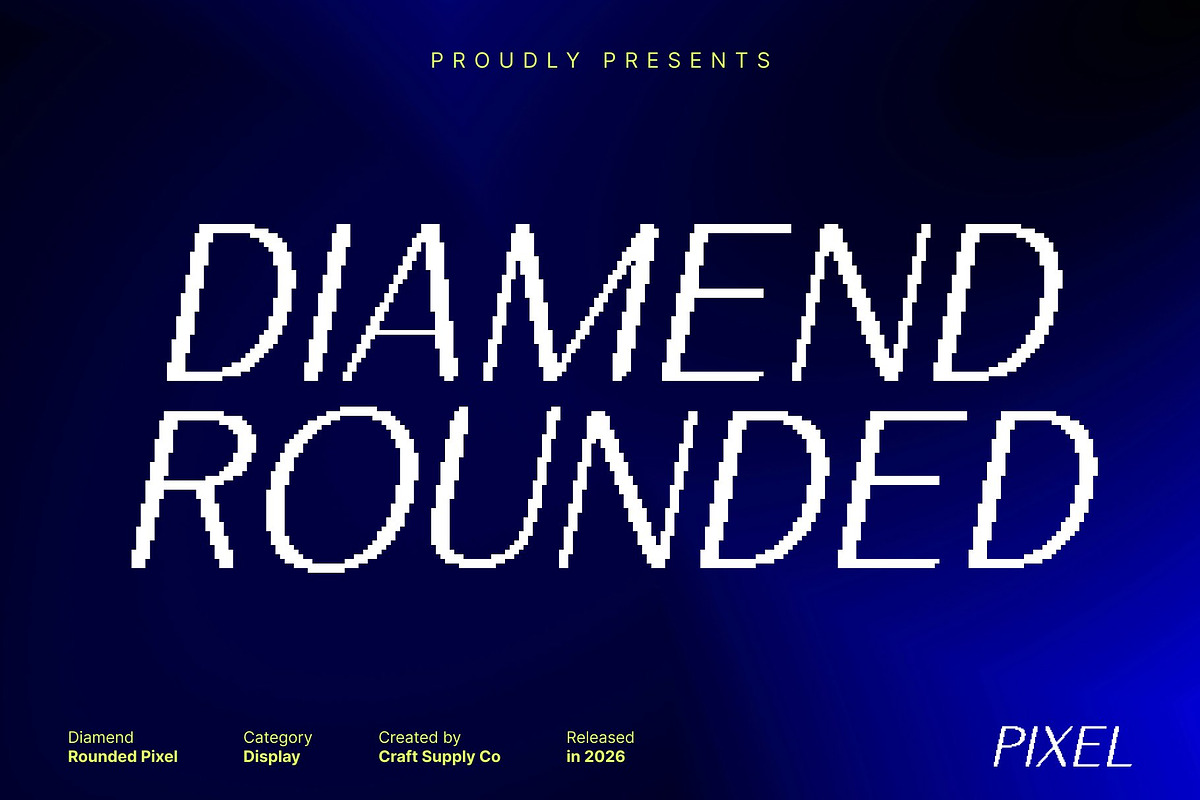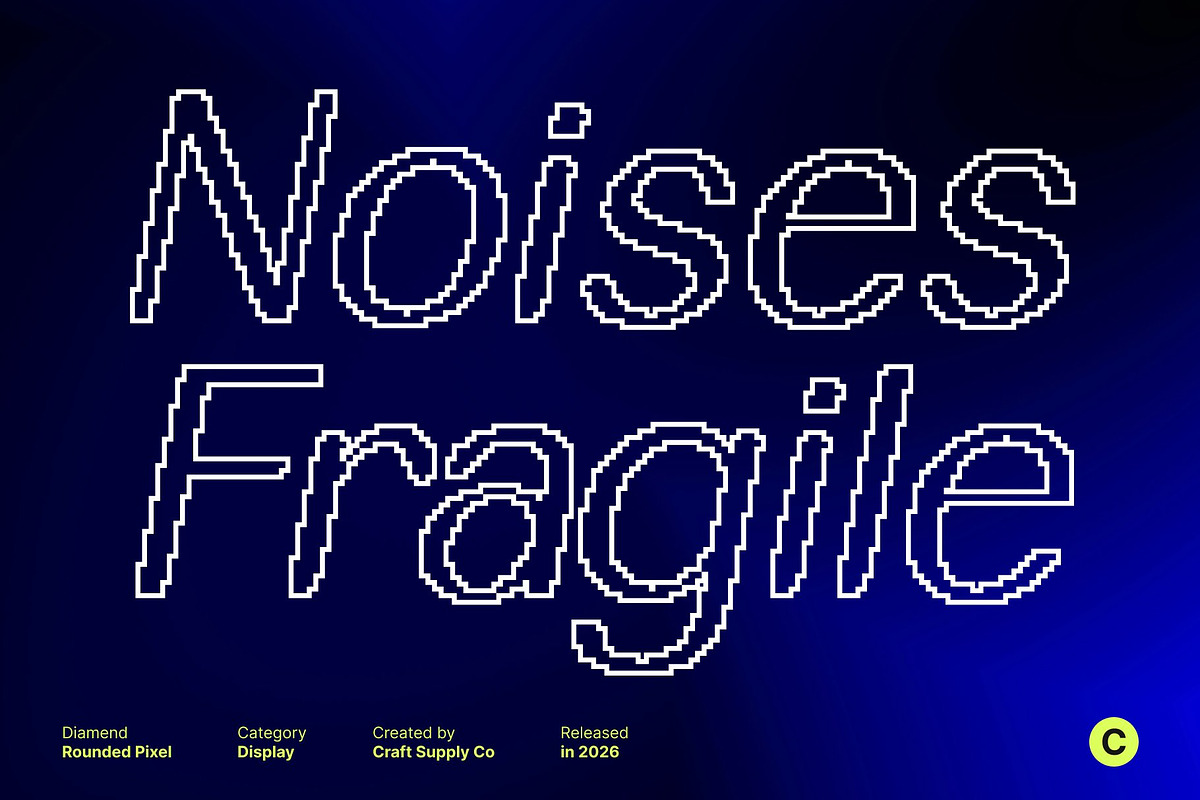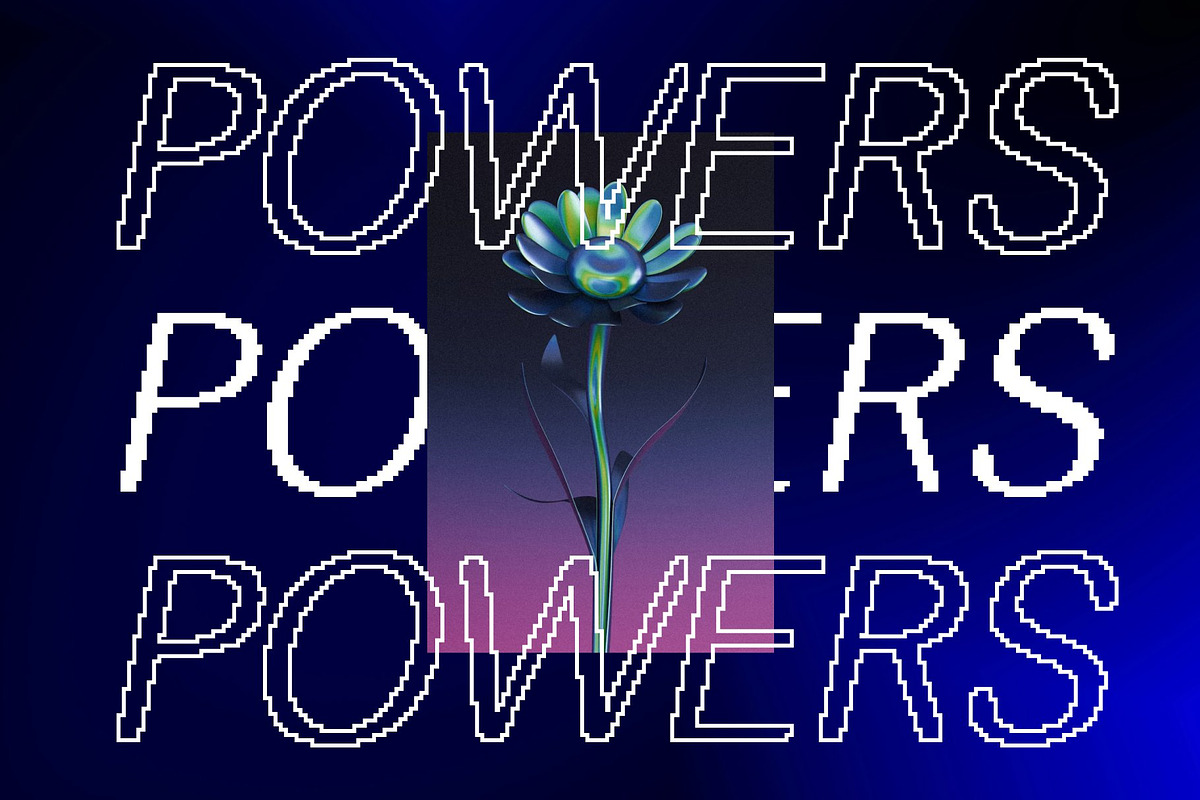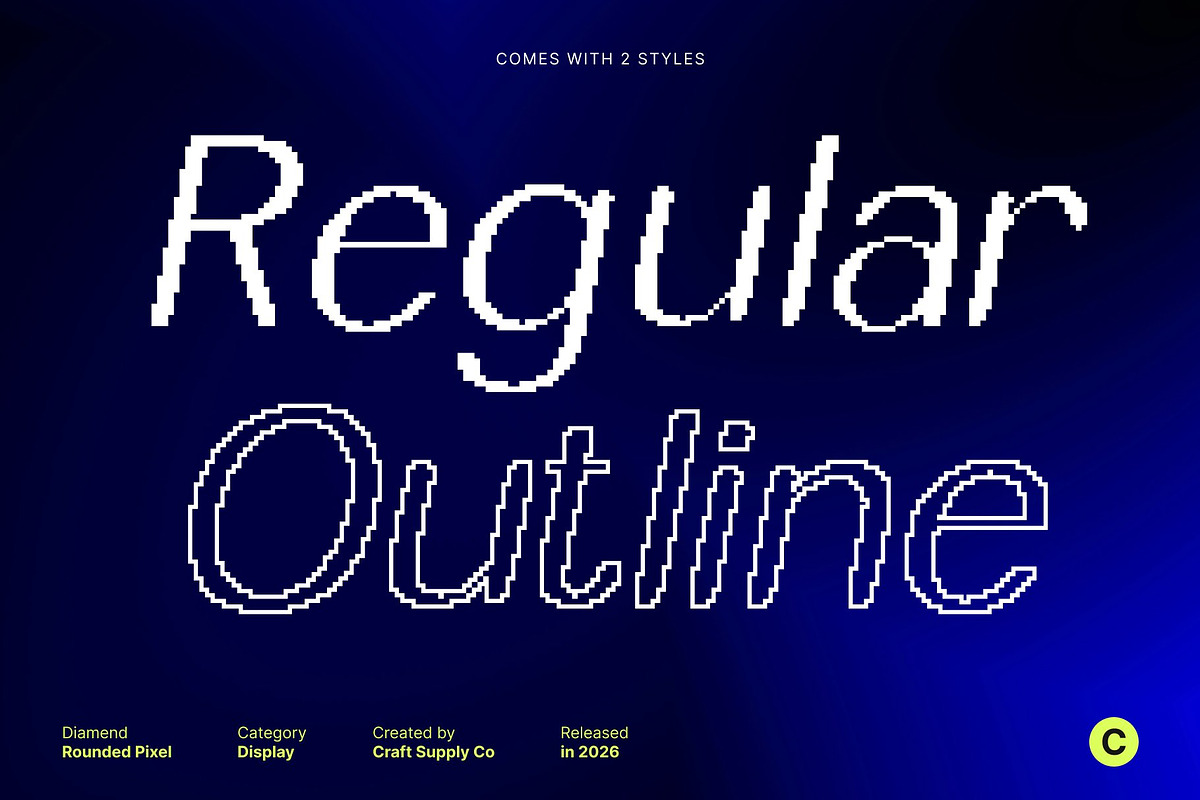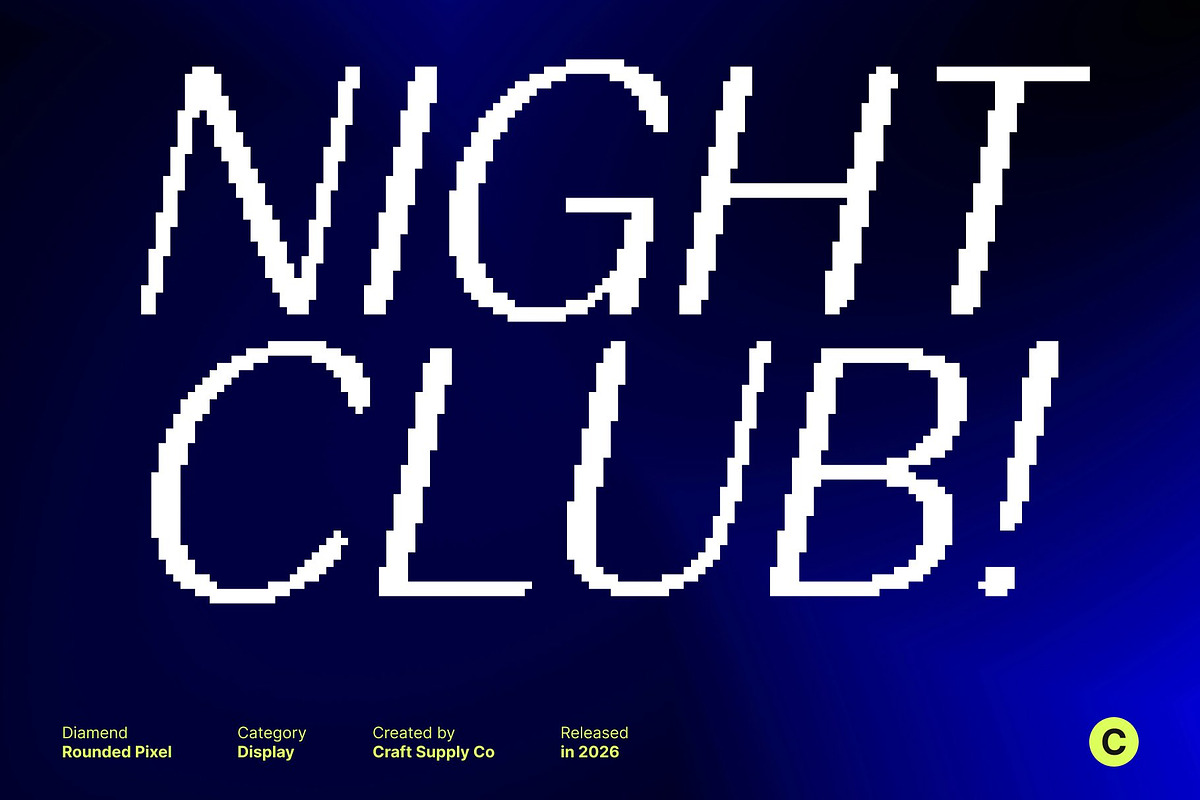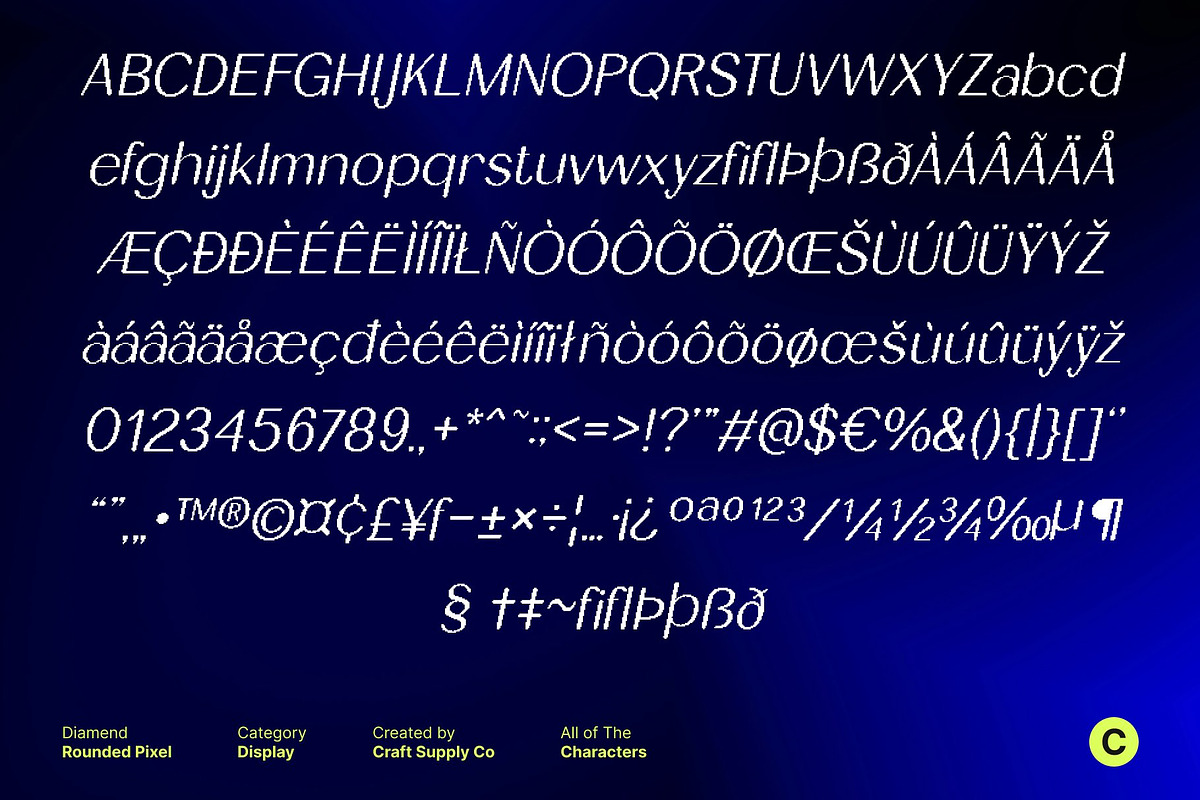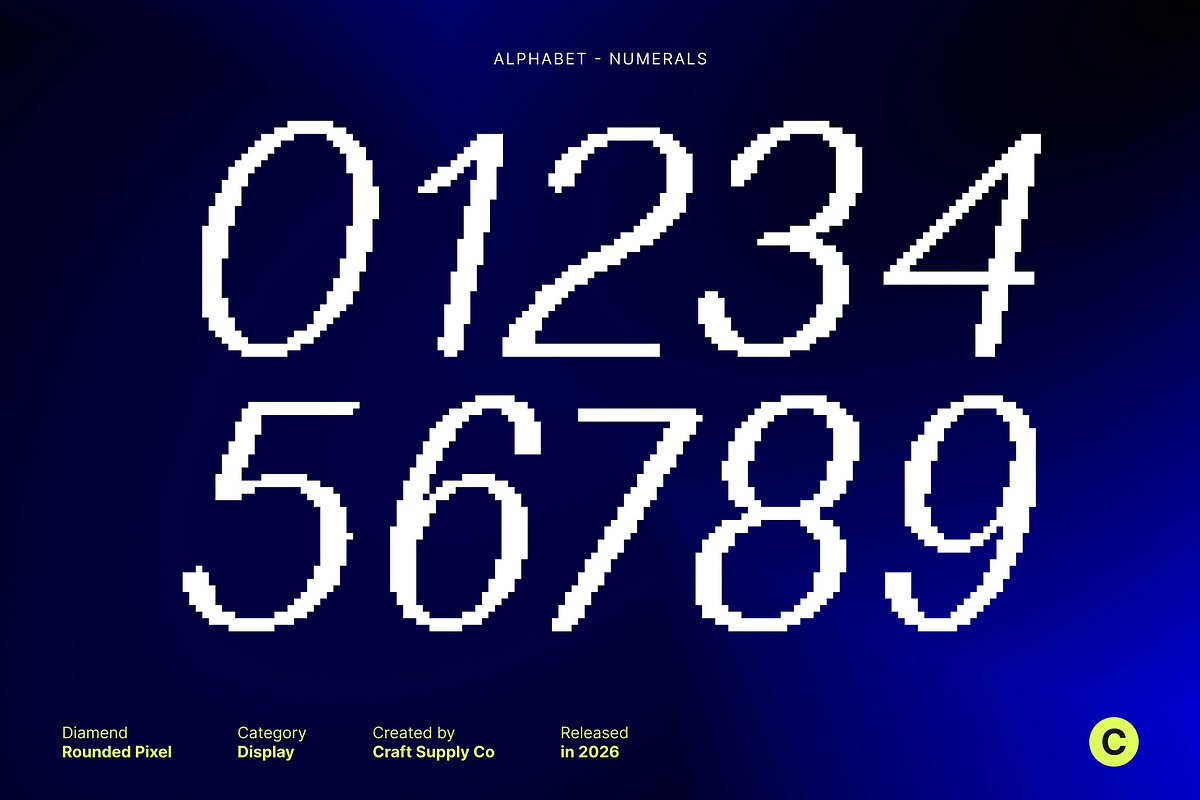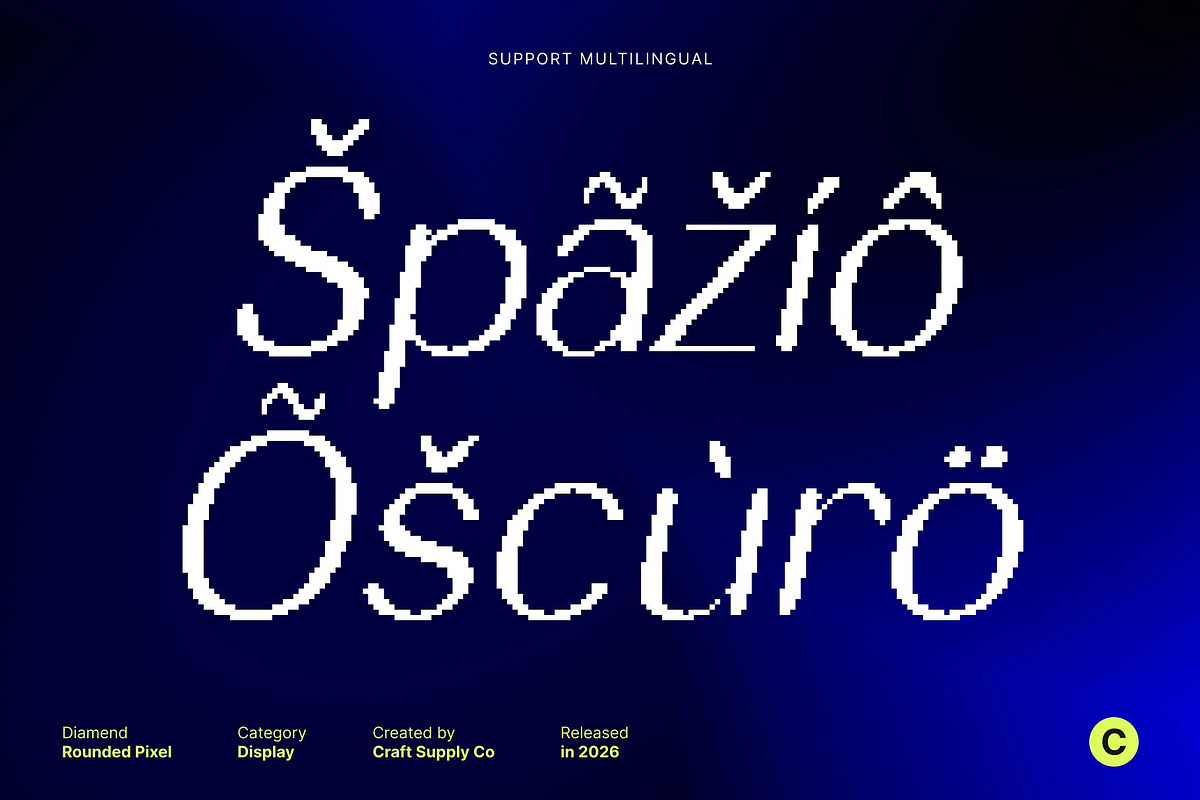
Diamend Rounded Pixel
Diamend Rounded Pixel – A Subtle Elegance Sans Serif
Smooth Rounded Sans with Pixel Softness This is a refined sans serif font that combines smooth, rounded letterforms with a subtle pixel character. This blend creates a soft yet modern appearance, delivering clarity, warmth, and gentle sophistication in every letter.
Elegant Simplicity with Digital Detail Embracing minimalism, features clean lines and rounded edges enhanced by pixel precision. The result is an elegant, approachable font that feels contemporary and friendly while maintaining a polished digital aesthetic.
Versatile for Digital and Print Use This font performs beautifully across both digital and print applications, from website headlines and user interfaces to branding materials and editorial layouts. Its balanced proportions and soft structure ensure readability and visual comfort in any context.
Timeless Warmth with Modern Appeal With its rounded forms, refined simplicity, and pixel-inspired touch, this font offers a timeless interpretation of modern sans serif typography. It brings understated elegance and approachability to designs, making it a versatile choice for projects that value subtle sophistication and lasting appeal.